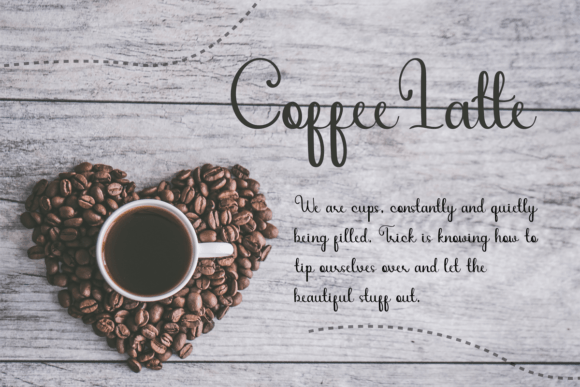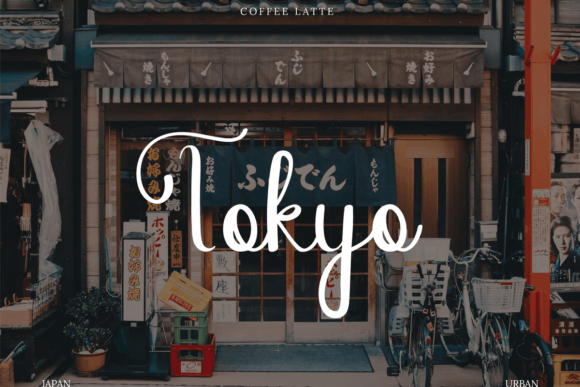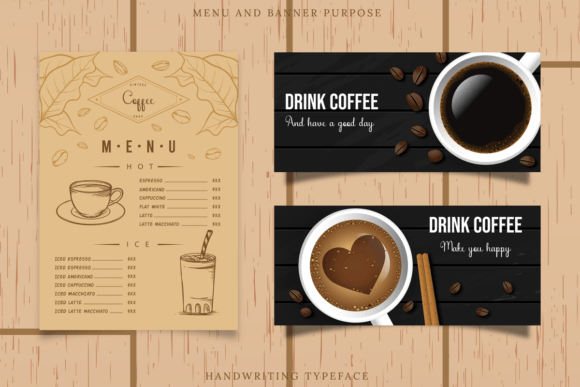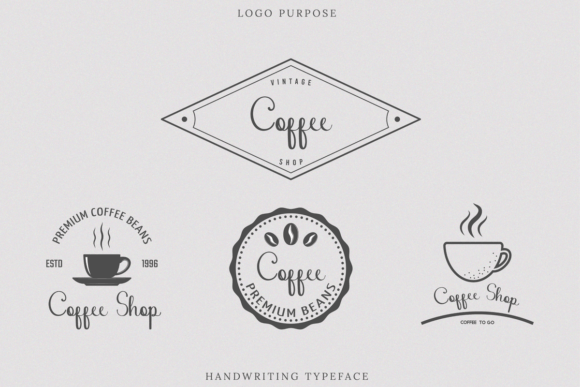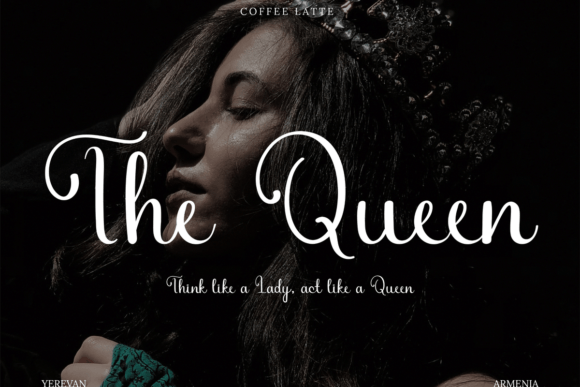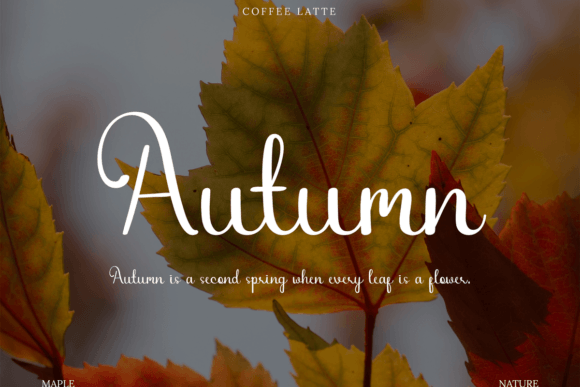
Coffee Latte Font: A Deliciously Creative Script Font for Designers and Crafters
Are you a designer or crafter looking for a unique and creative font to elevate your designs? Look no further than the Coffee Latte Font, a beautiful script font that’s perfect for logos, apparel designs, prints, and merchandise. In this article, we’ll dive into the features and benefits of the Coffee Latte Font, and explore how you can use it to create stunning designs that will leave a lasting impression.
What is Coffee Latte Font?
Coffee Latte Font is a script font that’s inspired by the warm and inviting tones of a perfectly crafted cup of coffee. With its elegant and flowing lines, this font is perfect for designs that require a touch of sophistication and whimsy. The font features beautiful swashes and ligatures that add a level of detail and intricacy to your designs, making it ideal for logos, branding, and marketing materials.
Key Features of Coffee Latte Font
- Elegant Script Style: Coffee Latte Font features a beautiful script style that’s perfect for designs that require a touch of elegance and sophistication.
- Swashes and Ligatures: The font includes beautiful swashes and ligatures that add a level of detail and intricacy to your designs.
- Versatile: Coffee Latte Font is perfect for a variety of design applications, including logos, apparel designs, prints, and merchandise.
How to Use Coffee Latte Font in Your Designs
Coffee Latte Font is a versatile font that can be used in a variety of design applications. Here are a few ideas to get you started:
Logos and Branding
Coffee Latte Font is perfect for logos and branding materials that require a touch of elegance and sophistication. Use it to create a custom logo for your business or brand, or to develop a cohesive brand identity that includes a consistent typography style.
Apparel Designs
Coffee Latte Font is also great for apparel designs, such as t-shirts, hoodies, and tote bags. Use it to create custom designs that feature quotes, phrases, or names, or to add a touch of personality to your apparel designs.
Prints and Merchandise
Coffee Latte Font is perfect for creating prints and merchandise, such as posters, flyers, and brochures. Use it to create stunning designs that feature beautiful typography and illustrations, or to add a touch of elegance to your merchandise.
Tips and Tricks for Using Coffee Latte Font
Here are a few tips and tricks to help you get the most out of Coffee Latte Font:
- Experiment with Different Colors: Coffee Latte Font looks great in a variety of colors, so don’t be afraid to experiment and find the perfect color scheme for your design.
- Use Swashes and Ligatures: The swashes and ligatures in Coffee Latte Font are a key feature, so be sure to use them to add detail and intricacy to your designs.
- Pair it with Other Fonts: Coffee Latte Font pairs well with other fonts, so don’t be afraid to experiment and find the perfect font combination for your design.
Coffee Latte Font is a beautiful and versatile script font that’s perfect for designers and crafters who want to add a touch of elegance and sophistication to their designs. With its elegant script style, swashes and ligatures, and easy-to-use design, Coffee Latte Font is a must-have font for anyone looking to create stunning designs. Whether you’re creating logos, apparel designs, prints, or merchandise, Coffee Latte Font is the perfect choice.